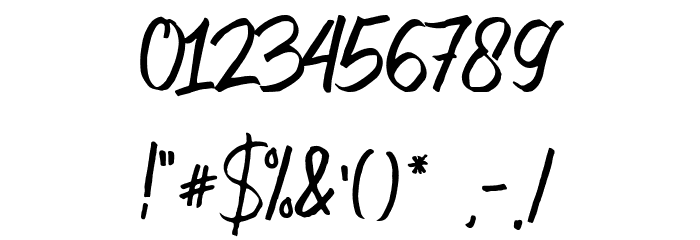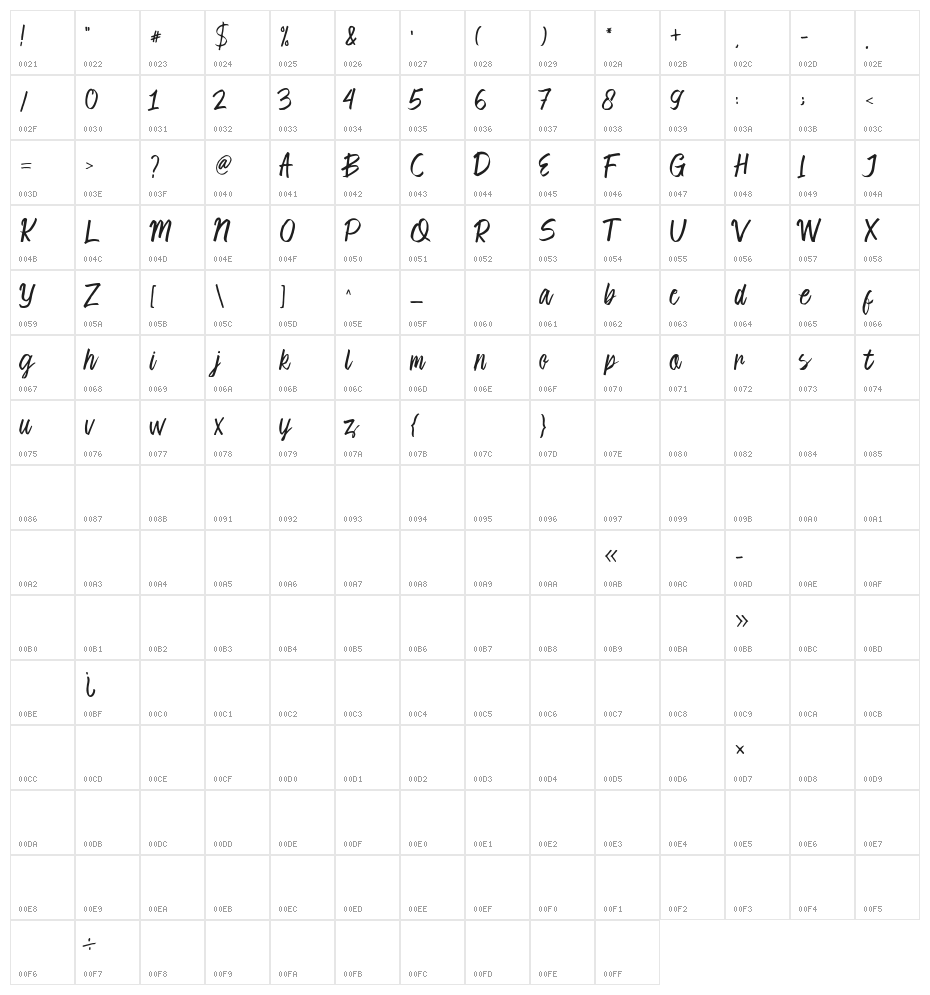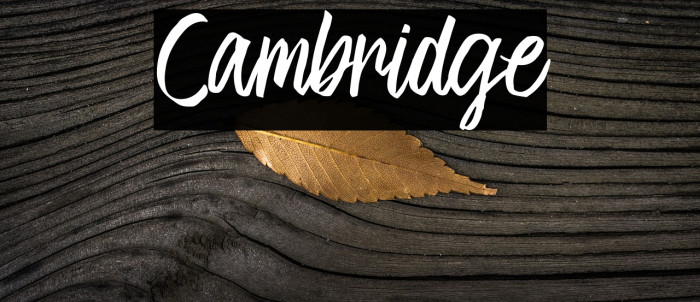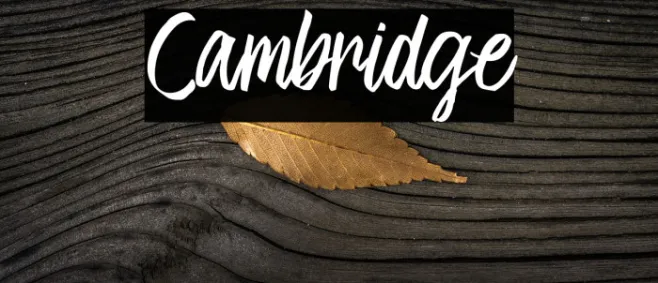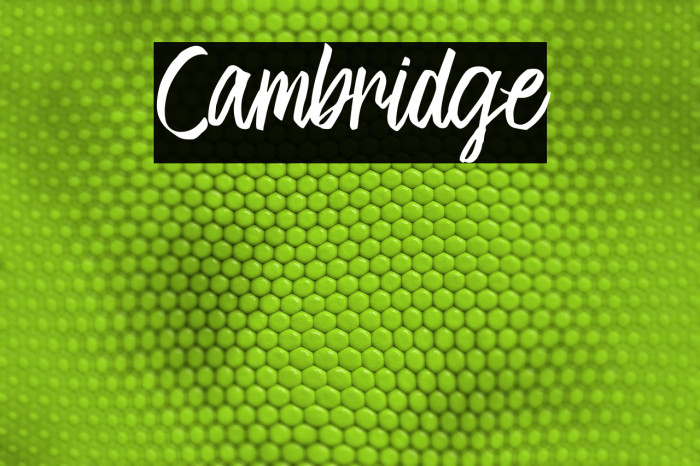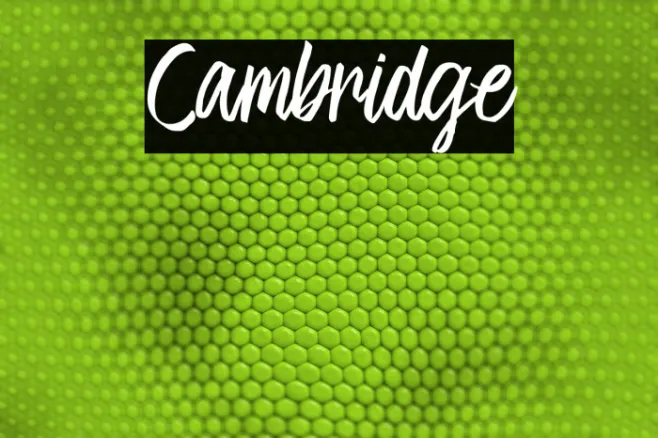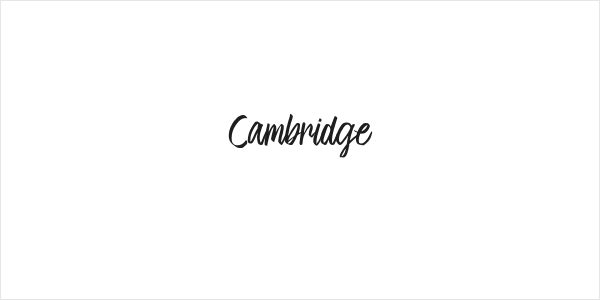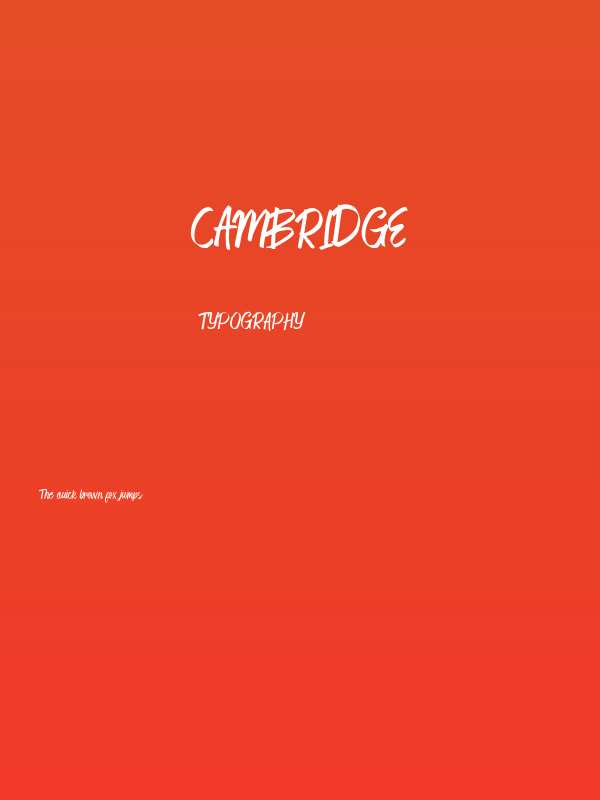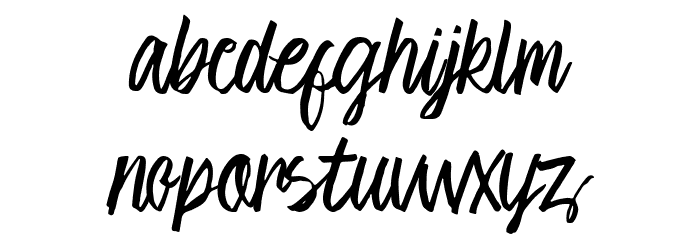
Cambridge Font
Cambridge Description
This font exudes a lively and dynamic energy with its bold, flowing script style. The uppercase letters are characterized by their sweeping curves and confident strokes, creating a sense of movement and elegance. The lowercase letters maintain this fluidity, with a slightly more compact form that complements the uppercase beautifully. The numerals are consistent with the overall style, offering a playful yet sophisticated look. Special characters are integrated seamlessly, enhancing the font's versatility. This font's handwritten appearance makes it ideal for projects that require a personal touch, while its boldness ensures it stands out in any context.